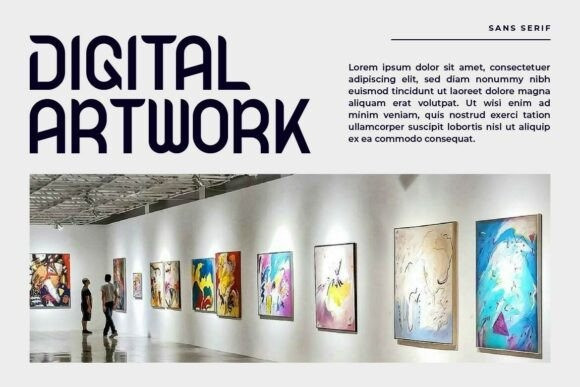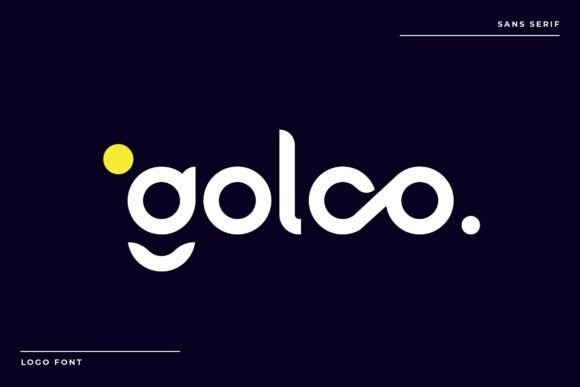
Golco Font
Golco Font is a bold sans serif logo font by Iwan Alwan, designed with clean, geometric letterforms that emphasize modernity and versatility. Perfect for logos, branding, packaging, and headlines, Golco exudes a strong, professional presence while remaining stylish and adaptable. With multilingual support, ligatures, and alternates, Golco is ideal for designs that demand a striking, contemporary look, making it a perfect choice for creating memorable brand identities.
This fonts are great for product logo,wedding card logo, clothing brand logo, Vintage design and much more.